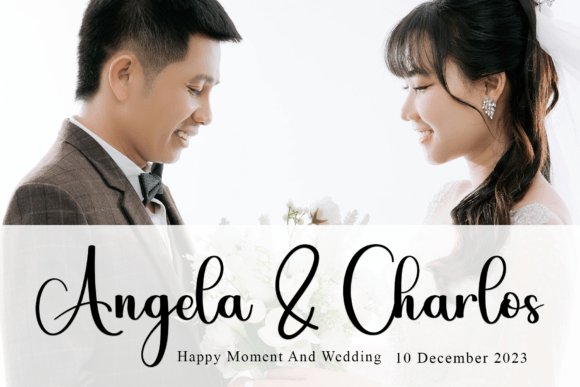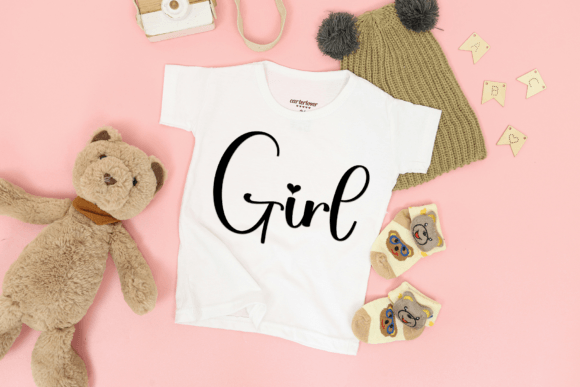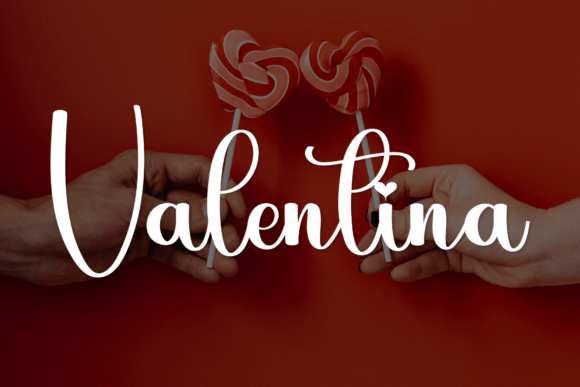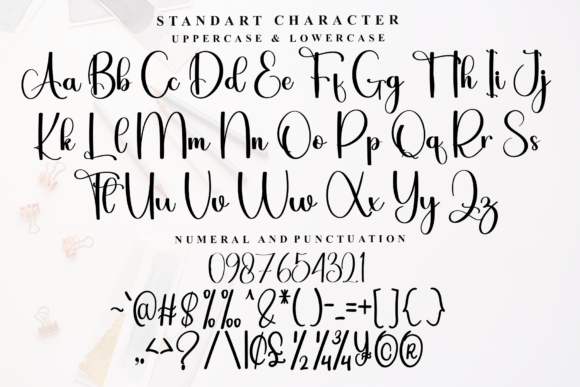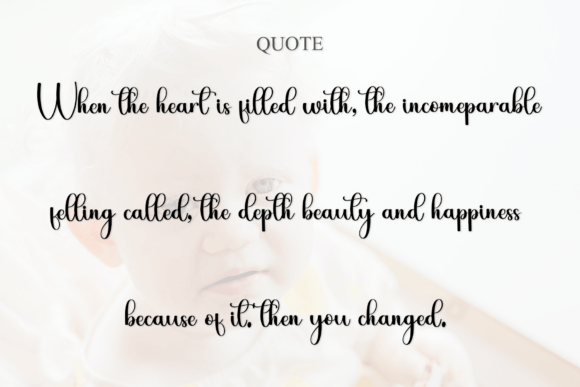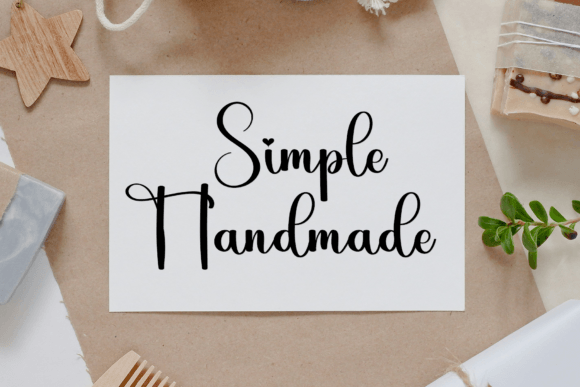
Biskiy Font: Elevate Your Designs with Elegance and Charm
In the world of typography, fonts play a crucial role in conveying the tone and personality of a design. For designers and crafters looking to add a touch of sophistication and warmth to their projects, the Biskiy Font is an excellent choice. This stylish handwritten script font is designed to exude elegance and charm, making it perfect for a variety of applications.
The Characteristics of Biskiy Font
Biskiy Font is characterized by its fluid strokes and natural flow, which create a captivating and sophisticated look. The font’s handwritten script style gives it a personal and approachable feel, making it ideal for designs that require a touch of warmth and creativity. Whether you’re working on invitations, branding, or social media graphics, Biskiy Font is sure to elevate your designs and leave a lasting impression.
Uses of Biskiy Font
One of the best things about Biskiy Font is its versatility. Its elegant and charming style makes it suitable for a wide range of design projects, including:
- Invitations: Add a touch of sophistication to your wedding invitations, birthday party invites, or any other special occasion with Biskiy Font.
- Branding: Use Biskiy Font to create a unique and memorable brand identity that reflects your company’s personality and values.
- Social Media: Elevate your social media graphics and posts with Biskiy Font, making them stand out in a crowded online space.
- Stationery: Add a personal touch to your stationery, such as notebooks, journals, or greeting cards, with Biskiy Font.
Benefits of Using Biskiy Font
So, why choose Biskiy Font for your design projects? Here are just a few benefits:
- Elegance and Charm: Biskiy Font’s stylish handwritten script style adds a touch of elegance and charm to any design.
- Versatility: Use Biskiy Font for a wide range of design projects, from invitations to branding and social media.
- Warmth and Creativity: Biskiy Font brings a sense of warmth and creativity to any design, making it perfect for projects that require a personal touch.
- Easy to Read: Despite its elegant style, Biskiy Font is easy to read, making it suitable for body text and headlines.
Tips for Using Biskiy Font
To get the most out of Biskiy Font, here are a few tips:
- Pair with Other Fonts: Combine Biskiy Font with other fonts to create a unique and visually appealing typography.
- Experiment with Colors: Try Biskiy Font with different colors and textures to add depth and interest to your design.
- Use for Headlines and Titles: Biskiy Font is perfect for headlines and titles, adding a touch of elegance and sophistication to your design.
In conclusion, Biskiy Font is a stylish handwritten script font that exudes elegance and charm. Its fluid strokes and natural flow create a captivating and sophisticated look, making it perfect for a wide range of design projects. Whether you’re a designer or crafter, Biskiy Font is an excellent choice for adding a personal touch to your designs. With its versatility, warmth, and creativity, Biskiy Font is sure to elevate your designs and leave a lasting impression.